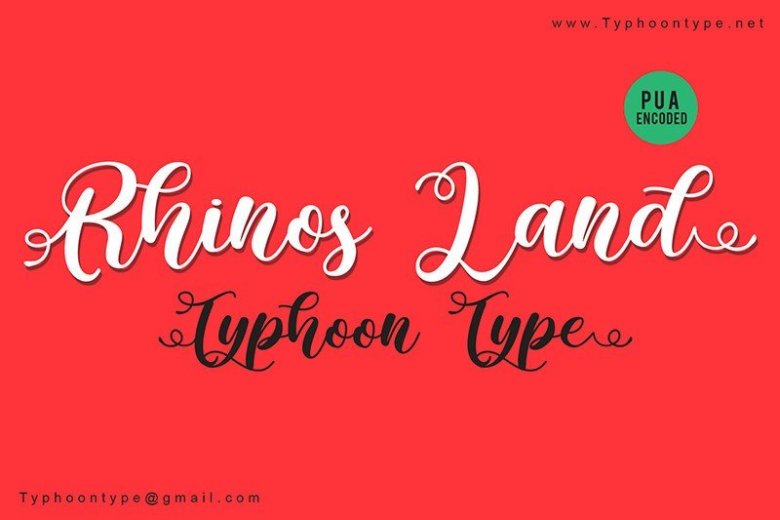
Rhinos Land Calligraphy Font
Rhinos Land This font perfect for logos, name tag, advertising, product packaging, clothing, social media & greeting cards.
Type ( before word to get beginning swash and Type ) after word to get the ending swash.
Example : (Typhoon Type)